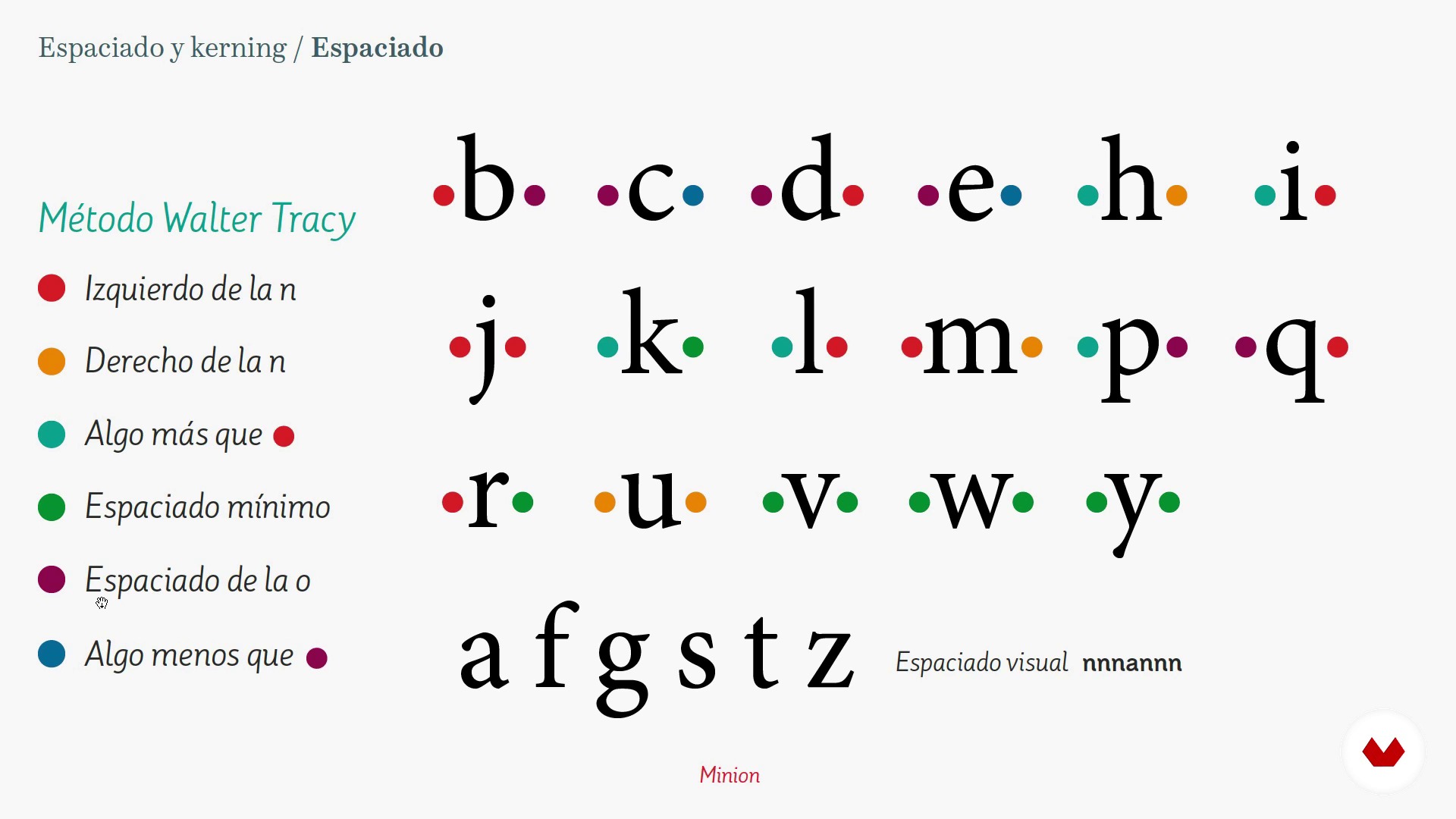
The Spaced 1
About the video: The Spaced 1
“In this lesson we will see how to use glyphs to space our lyrics, and the Walter Tracy method to help us find the right rhythm.”
“[Music] Although all the glory is left by the kerning, really the important thing in a letter is the spacing. With a good spacing we will save a lot of work doing kerning and our lyrics will look much better overall. Let's see how we do it in Glyphs. Once the alphabet is drawn, let's learn to space the letters, like the TV cooks, I already have a prepared alphabet here, a basic alphabet in high box and low box and although we drawing may have created a spacing even provisional that has been good for us to see the alternations between blacks and whites, what I am going to do now is to charge...”